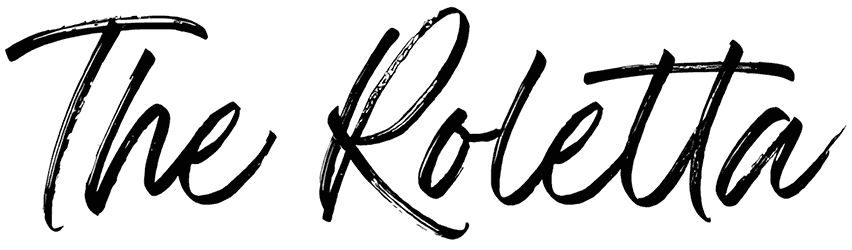
The Roletta Font
A real mood will help you communicate better with the viewers, and what else can do this than a manuscript face? The Roletta, as a brush font with a nice natural design, can be the answer. Although this artistic font doesn’t include most of the numbers, but will still display your projects, such as posters, handwritten quotes, apparel, and others the same.